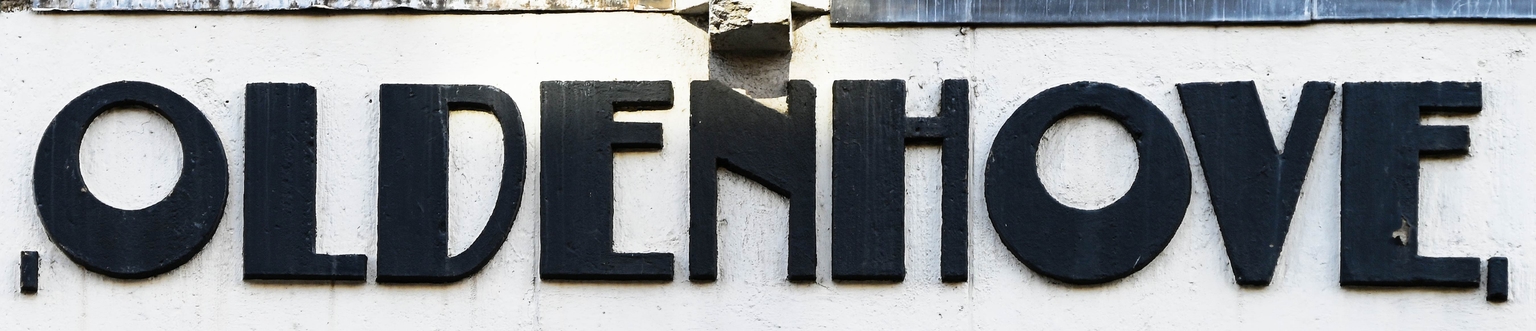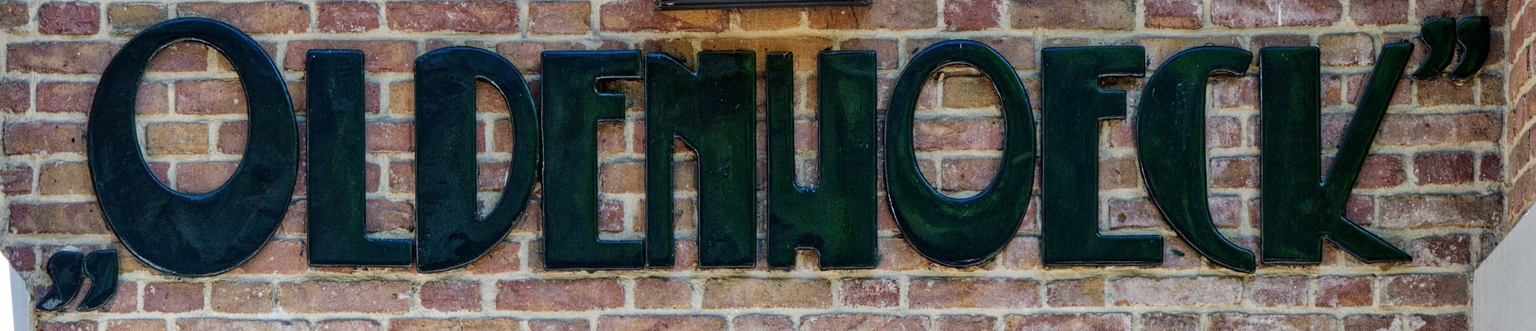
Oldenhove
Oldenhove is an interpretation of the lettering found on the facades of two buildings located in The Hague and Amsterdam, designed by architect F. A. Warners (1888–1952) in a style reminiscent of the Amsterdam School.
Sabina Chipară adapted the original letters, smoothing out imperfections and increasing the alphabet’s consistency to create a solid Deco-style typeface.
Oldenhove features an strong contrast between its stems and compact, compressed appearance. It’s a typeface well-suited for art or architecture book covers, as well as movie and theater posters. Restaurants and shops aiming to suggest elegance or evoke the 1920s and 1930s in their branding will also find Oldenhove a fitting typographic resource.